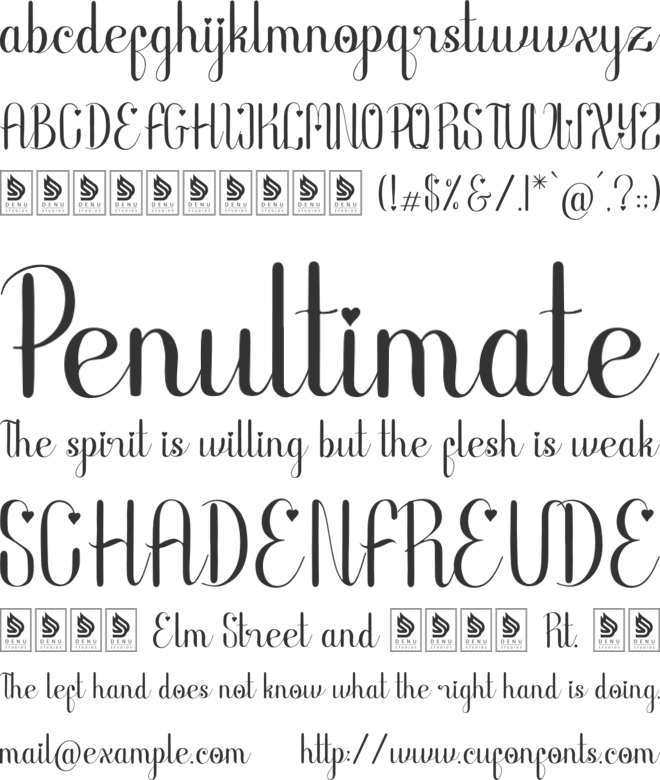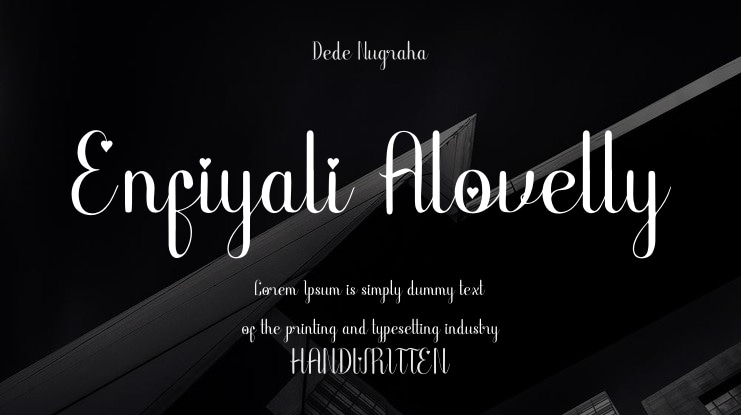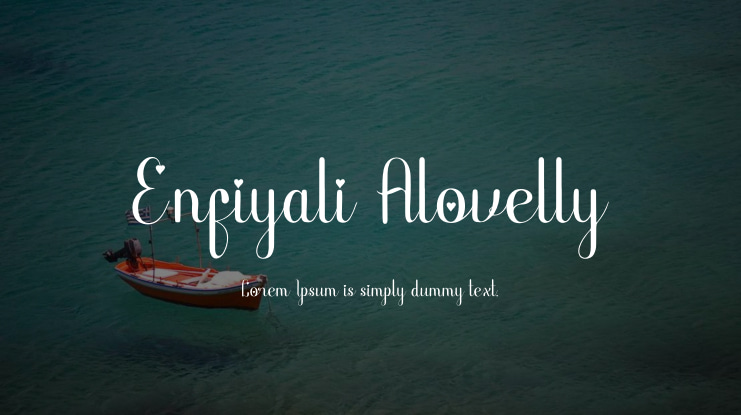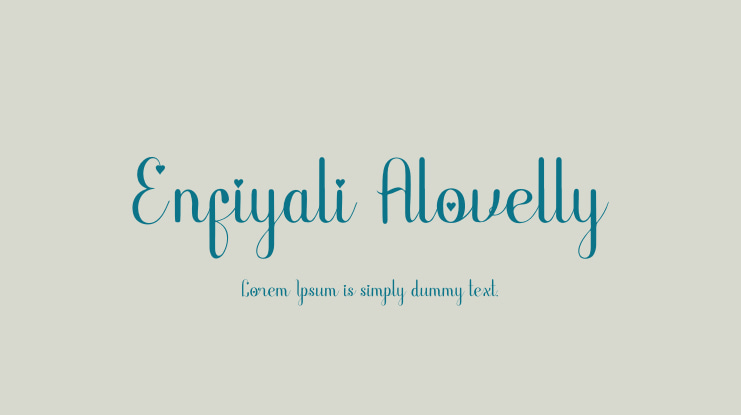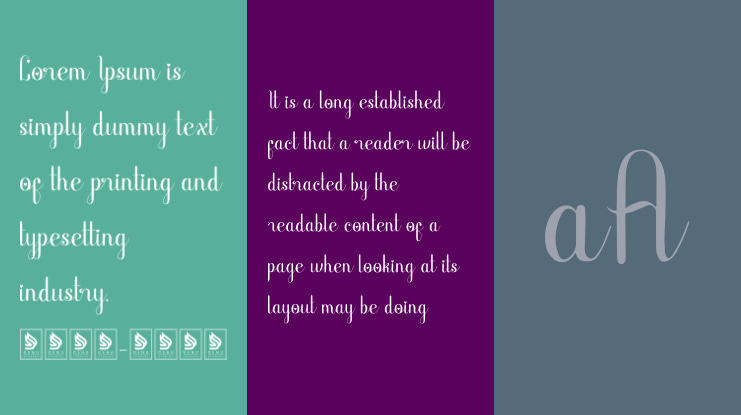
Enfiyali Alovelly | Love Modern Script is a versatile font suitable for various projects such as logos, branding, homeware designs, product packaging, quotes, posters, apparel, and more. By using this font, you agree to the Product Usage Agreement: - This demo font is for Personal Use only, commercial use is not allowed. To purchase the full version and commercial license, visit: [https://denustudios.com/enfiyali-alovelly-love-modern-script/](https://denustudios.com/enfiyali-alovelly-love-modern-script/). For corporate use, a Corporate license is required. Custom licenses can be arranged by contacting us at: [https://denustudios.com/contact/](https://denustudios.com/contact/). Any donations are greatly appreciated through our PayPal account: [https://www.paypal.com/paypalme/denustudios](https://www.paypal.com/paypalme/denustudios). Explore more fonts at our store: [https://denustudios.com/](https://denustudios.com/). Thank you.